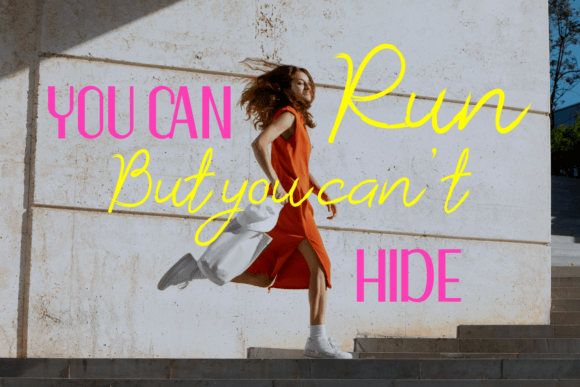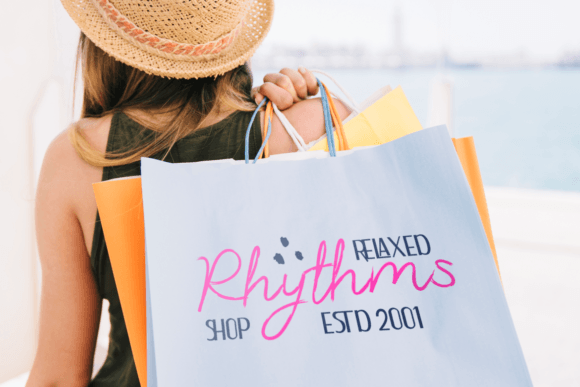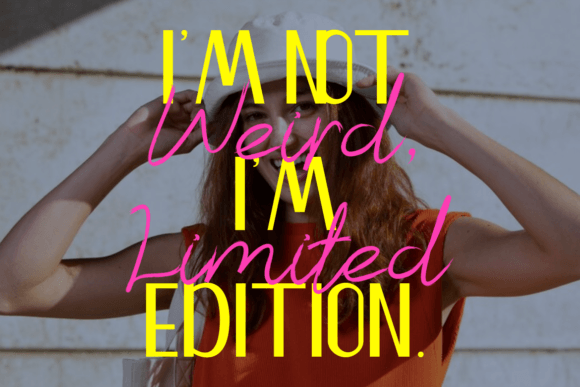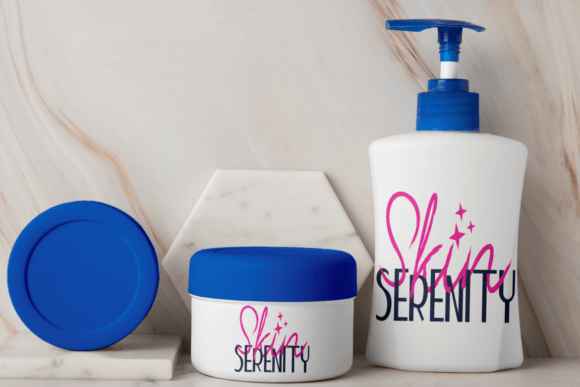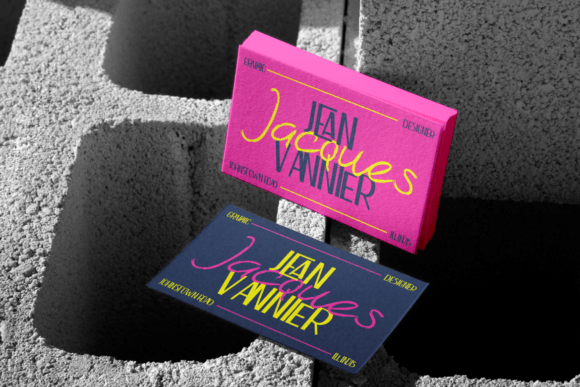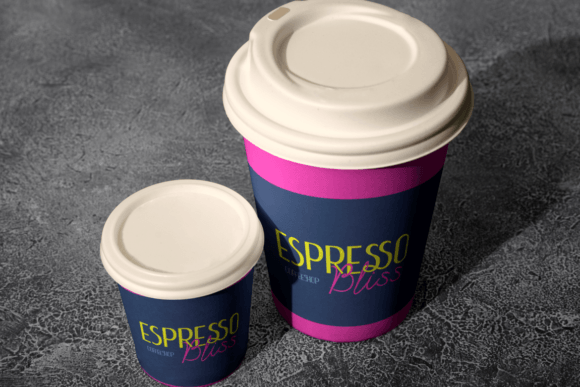
Introduction to Simply Pleasures Font
Have you ever been in a creative flow, surrounded by blank sheets of paper and a blank mind, only to have the perfect idea strike you? That’s exactly what happened when we stumbled upon the Simply Pleasures Font – a perfect blend of modern brush script and elegant sans-serif typefaces. This dynamic font duo is the ultimate design resource for creatives looking to elevate their projects.
The Simply Pleasures Font is more than just a pretty face; it’s a high-quality tool that adds sophistication and professionalism to any design project. With its flowing ligatures and natural brush strokes, this font duo adapts seamlessly to any setting, from branding projects to social media graphics.
- Unique, cursive script style with a touch of sophistication, ideal for adding a personal touch to various design projects.
Honest Review: Simply Pleasures Font
As a designer, I’m always on the lookout for high-quality design resources that can elevate my creative projects. The Simply Pleasures Font is one such find that caught my eye. On the surface, it appears to be a beautifully crafted font that can add a touch of elegance to any design.
What works well: ✨ The font’s clean and minimalist design makes it perfect for a wide range of creative projects, from wedding invitations to branding materials. The transparent background option is also a great feature that allows for seamless integration with other design elements.
However, there are some limitations to consider: ⚠️ The font’s limited character set may be a concern for designers who require a wide range of glyphs for their project. Additionally, the font may not be suitable for projects that require a bold or dramatic look.
Overall, the Simply Pleasures Font is a solid choice for designers who value high-quality design resources. While it may not be perfect, its clean design and transparent background make it an excellent addition to any design toolkit.
Simply Pleasures Font is perfect for creating designs for weddings, birthday parties, and other special events. You can also use it to create designs for branding and marketing materials, such as business cards and brochures.